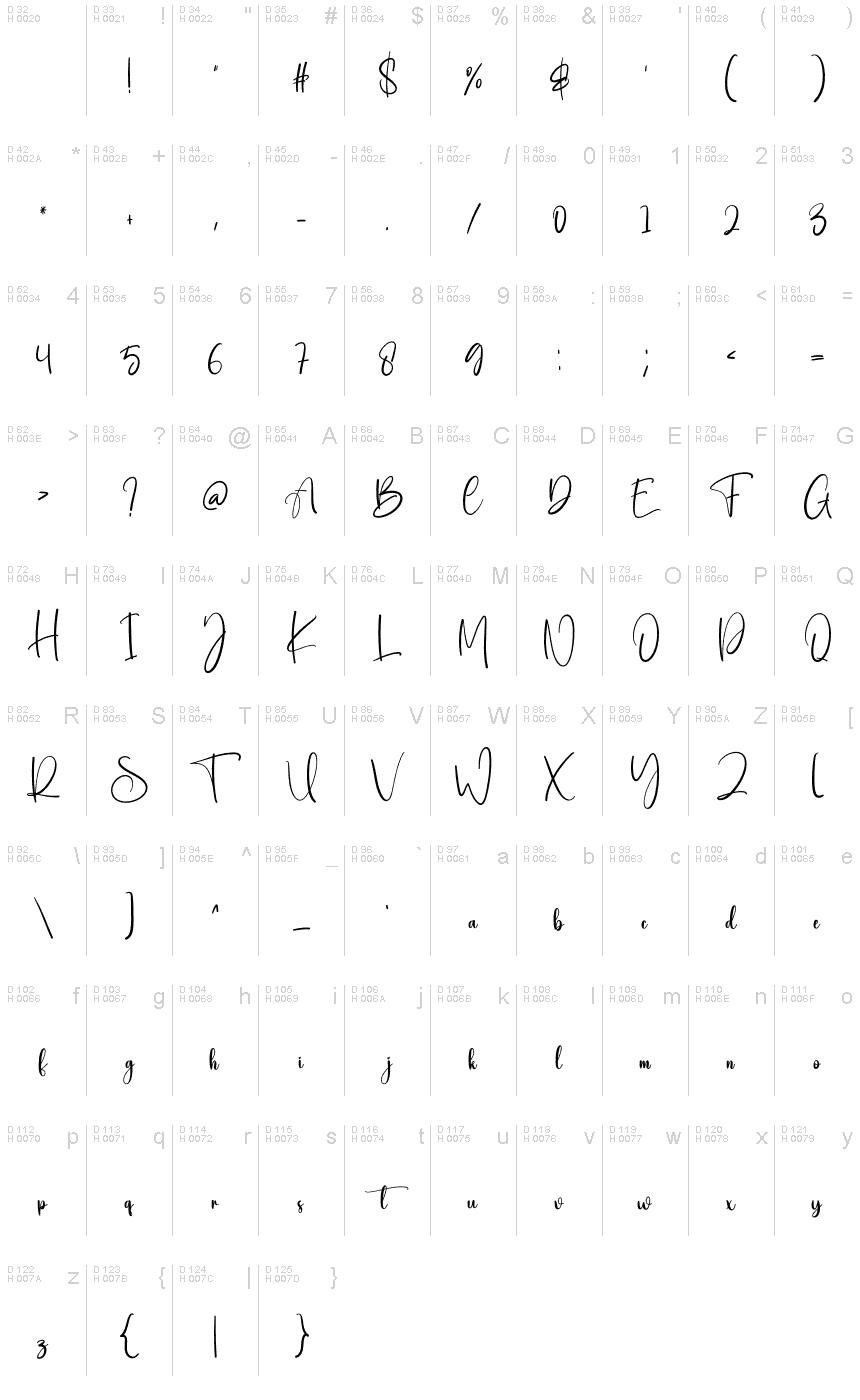
Regular, a handwritten font crafted by Scratchones, embodies the perfect blend of personal touch and readability. With its semi-light weight, Regular offers a delicate and unassuming aesthetic that is versatile for both print and digital mediums. The fluidity of its characters suggests an elegance that can elevate the appeal of invitations, branding materials, and personalized correspondence. Its aesthetic charm lies in the subtle humanistic qualities that evoke the warmth of handcrafted artisanship.
This font's style seamlessly fits into creative projects looking to infuse a sense of intimacy and authenticity without sacrificing clarity. From sophisticated packaging design to heartfelt editorial work, Regular's inviting contours are poised to add an organic sophistication to any endeavor. Whether you're crafting a logo or penning down poetic verses, Regular stands ready to impart your message with its distinctive character and stylistic flair.